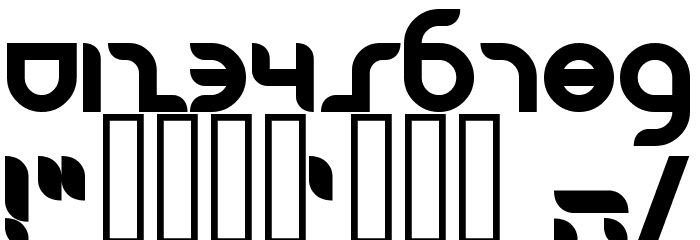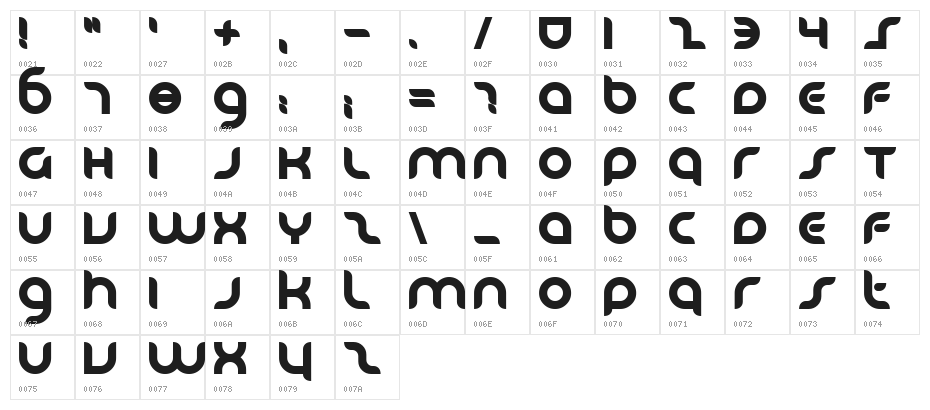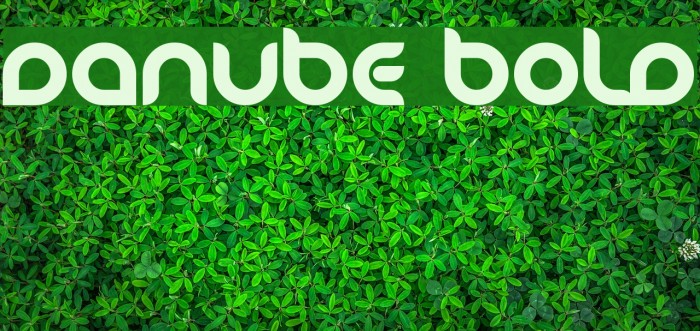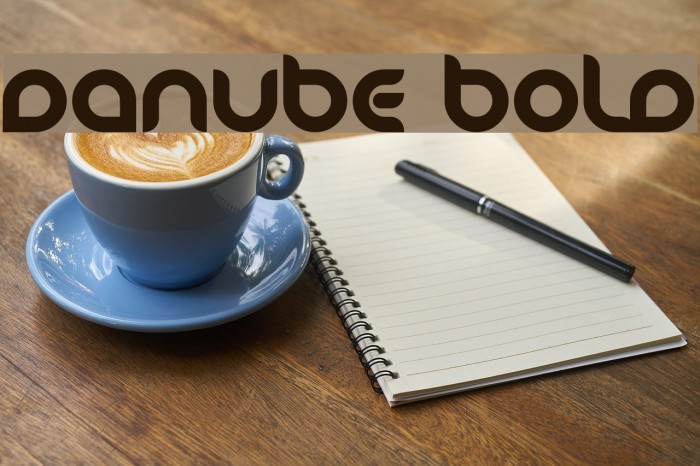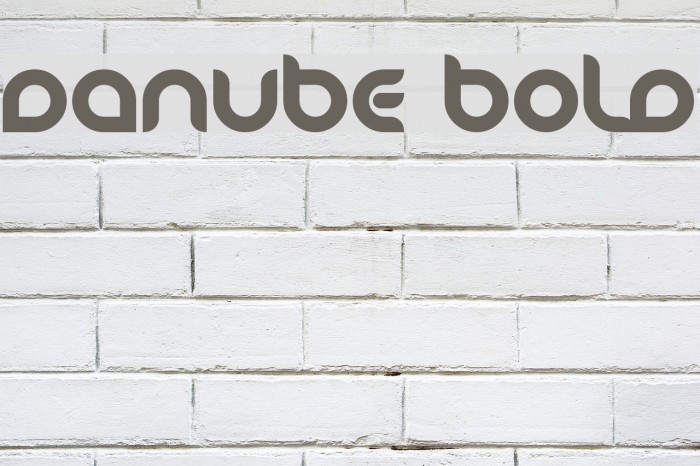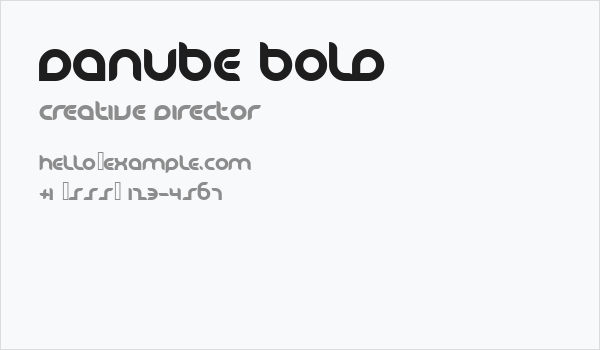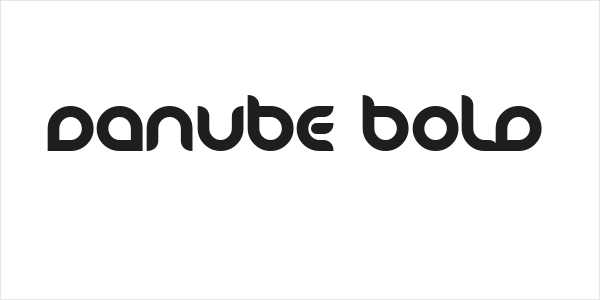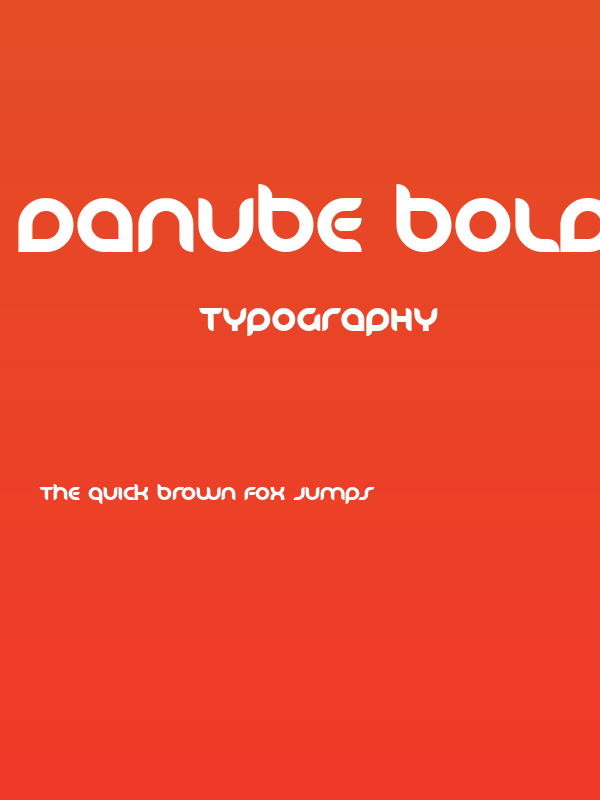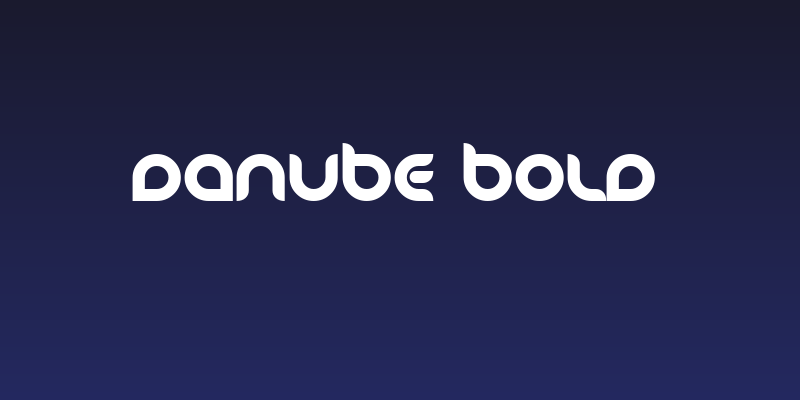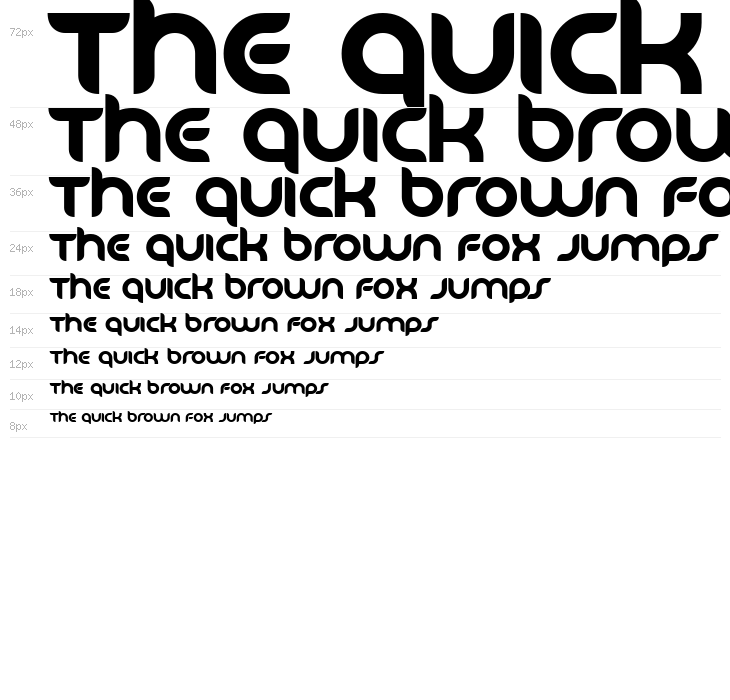
Danube Bold Font
Danube Bold Description
This font features a bold and futuristic design with a unique geometric style. The characters are rounded with smooth curves and a consistent thickness, giving it a modern and sleek appearance. The uppercase and lowercase letters maintain a uniformity that enhances readability while still offering a distinct visual appeal. The numbers and special characters follow the same design principles, ensuring a cohesive look across all glyphs. This font's boldness makes it stand out, suitable for eye-catching designs.
| Proposed Projects | Ideal for technology branding, sci-fi themed projects, modern posters, and digital interfaces. |